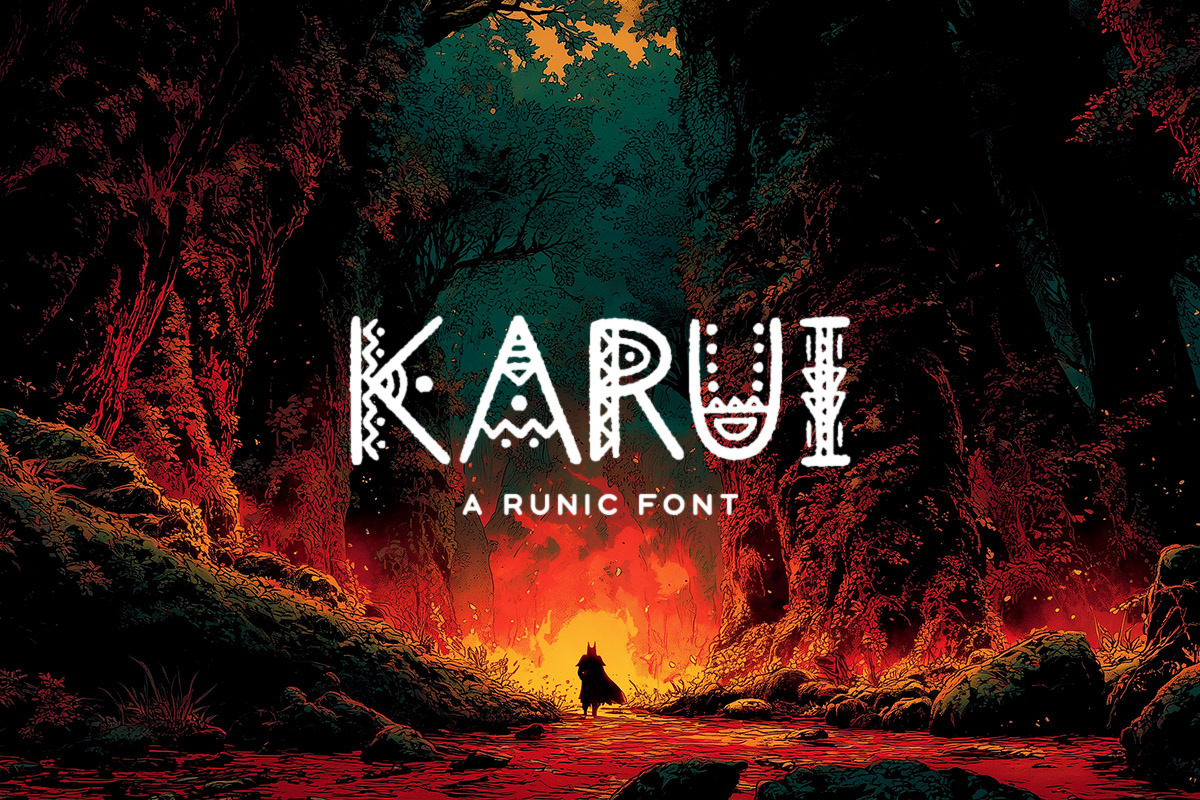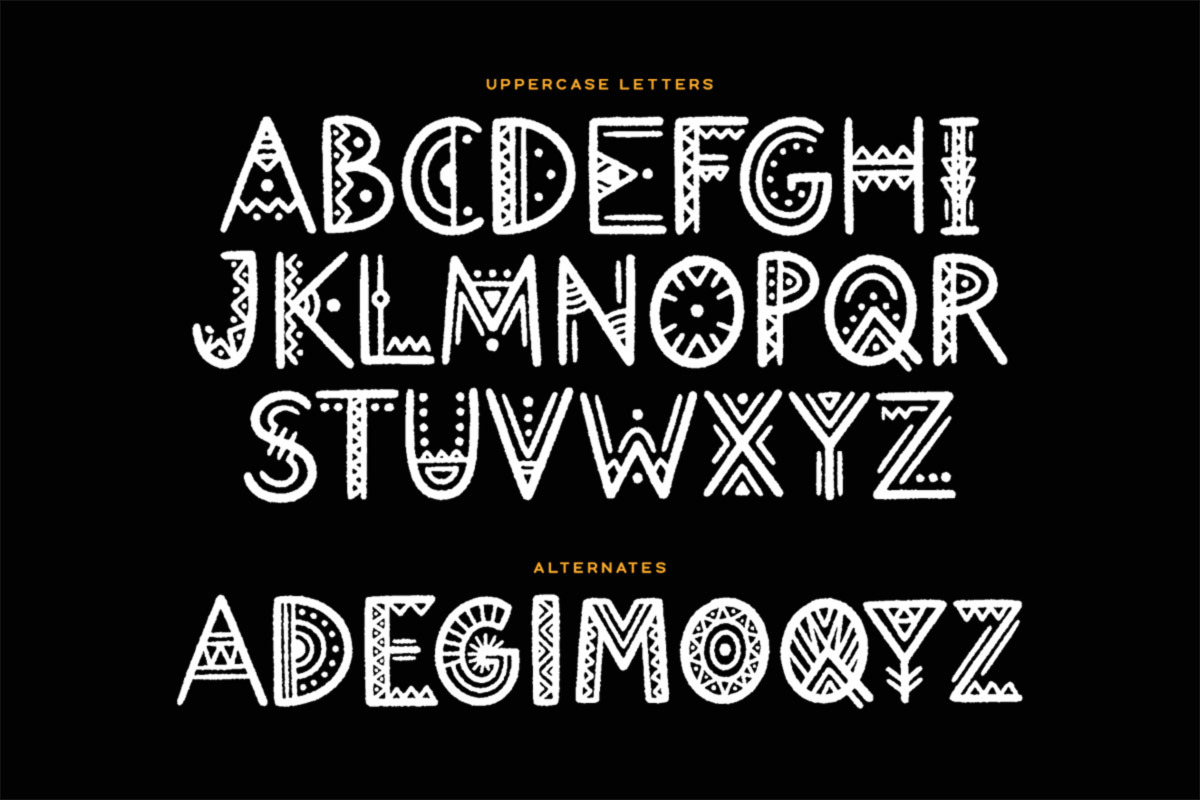
Karui Typeface
KARUI is a handcrafted runic display font inspired by ancient markings, tribal carvings, and mystical symbols. Every letter is decorated with unique patterns, geometric cuts, and ritualistic details, giving the font a magical, primitive, and adventurous aesthetic. Perfect for fantasy titles, folklore themes, game design, mystical branding, and anything that needs a handcrafted, otherworldly vibe. Includes alternates, numbers, and symbols for fully customizable designs.